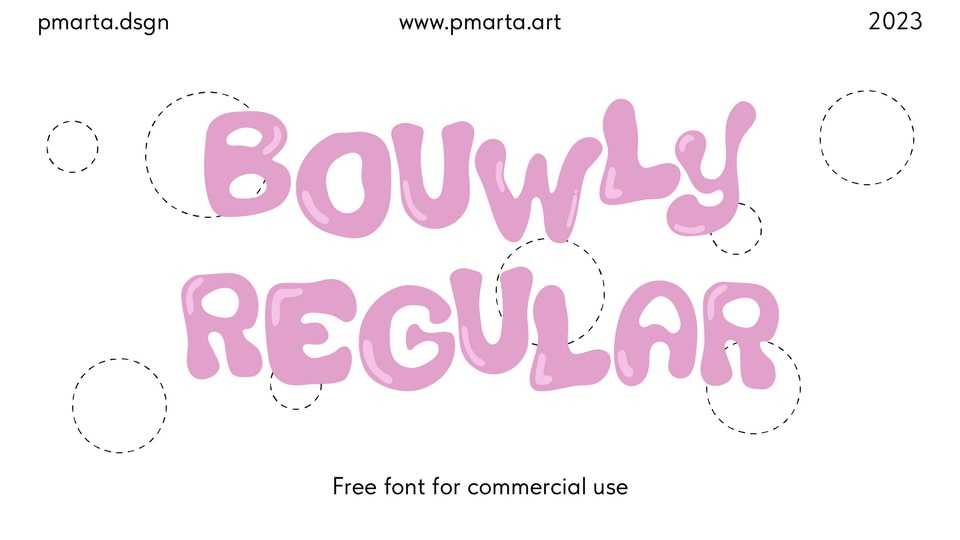
Download Bouwly font, a playful display typeface designed in an abstract style. Bouwly is perfect for branding, logo, invitation, greeting card, packaging, graphic tee, poster, digital or print stuff that you need to make a fun, neat, and chic impression.